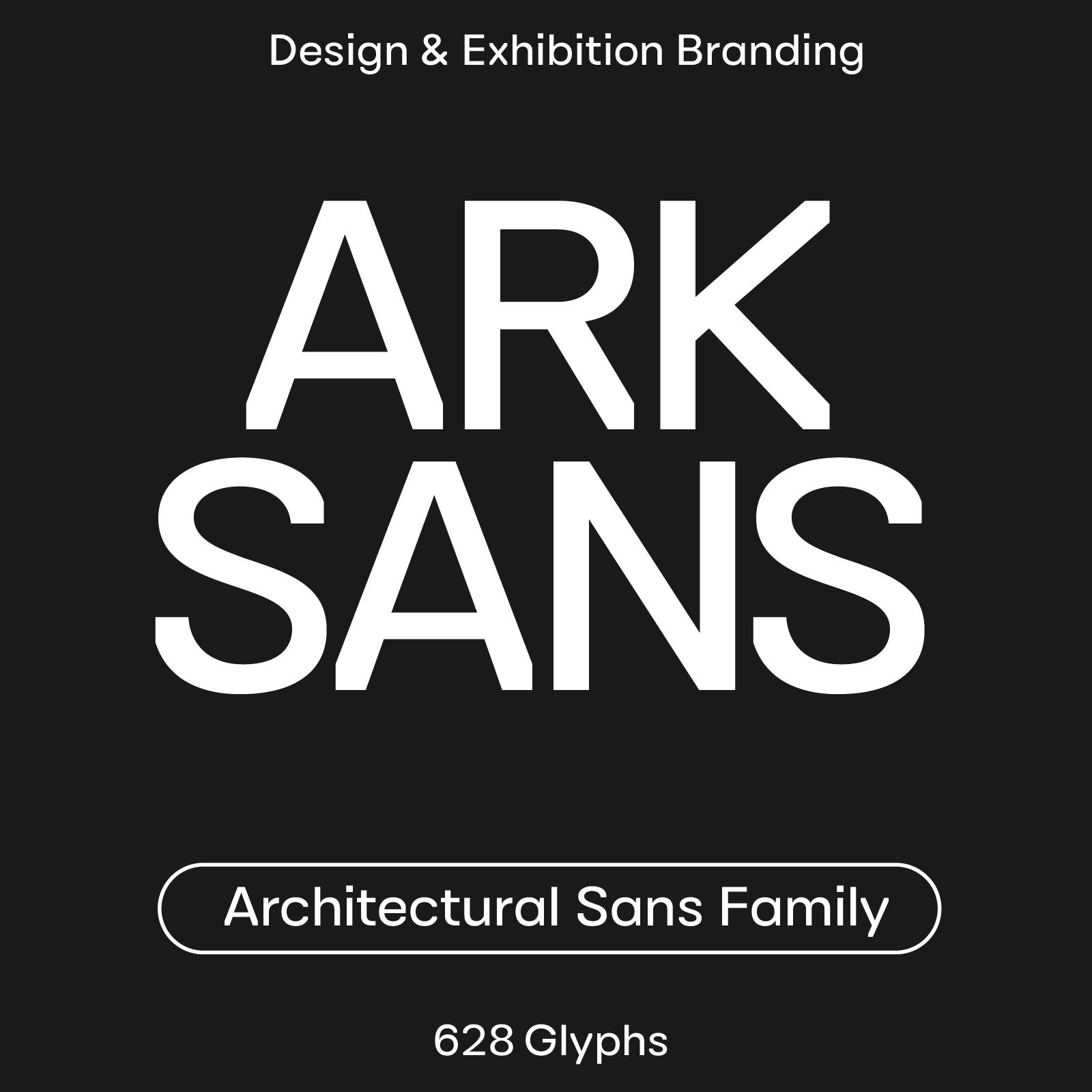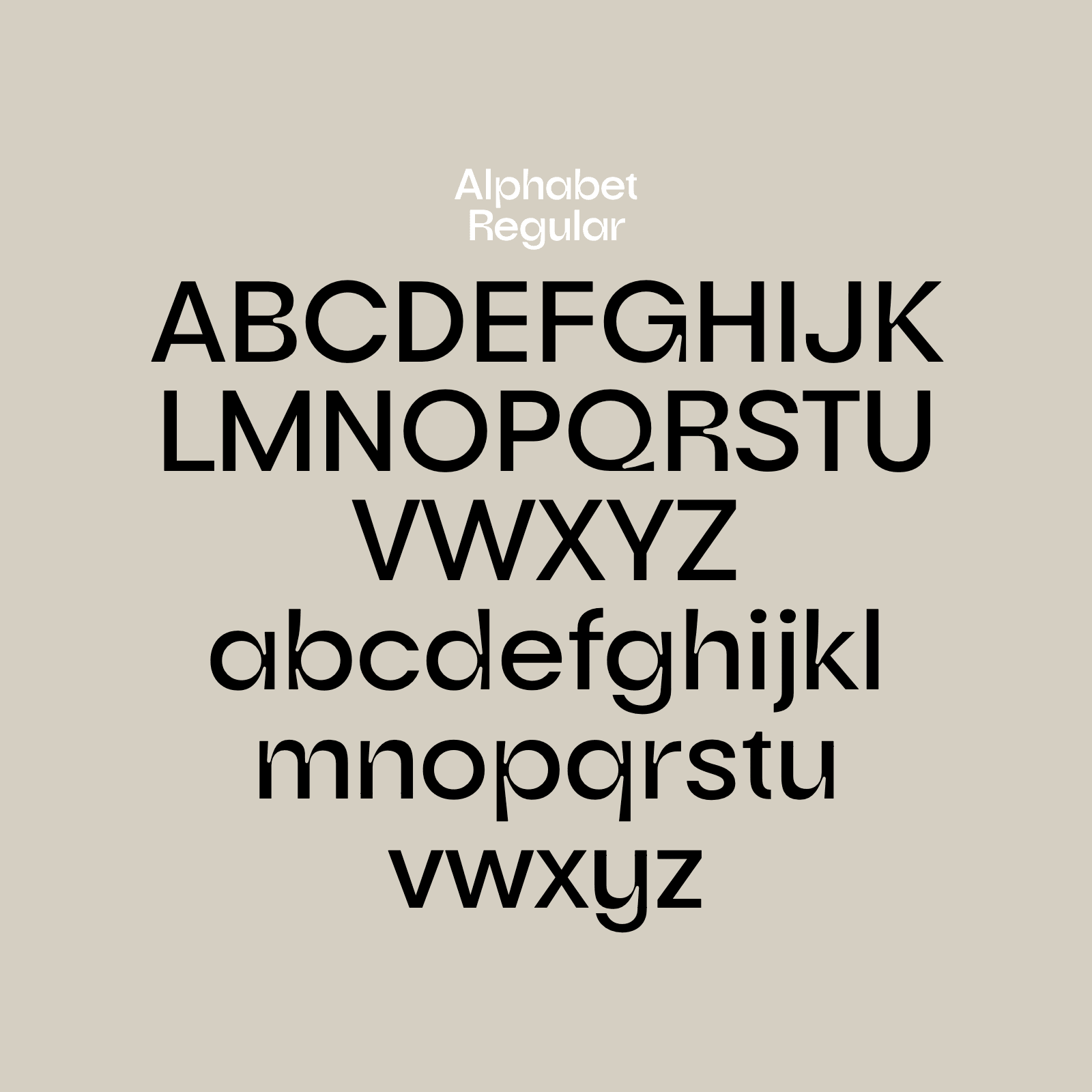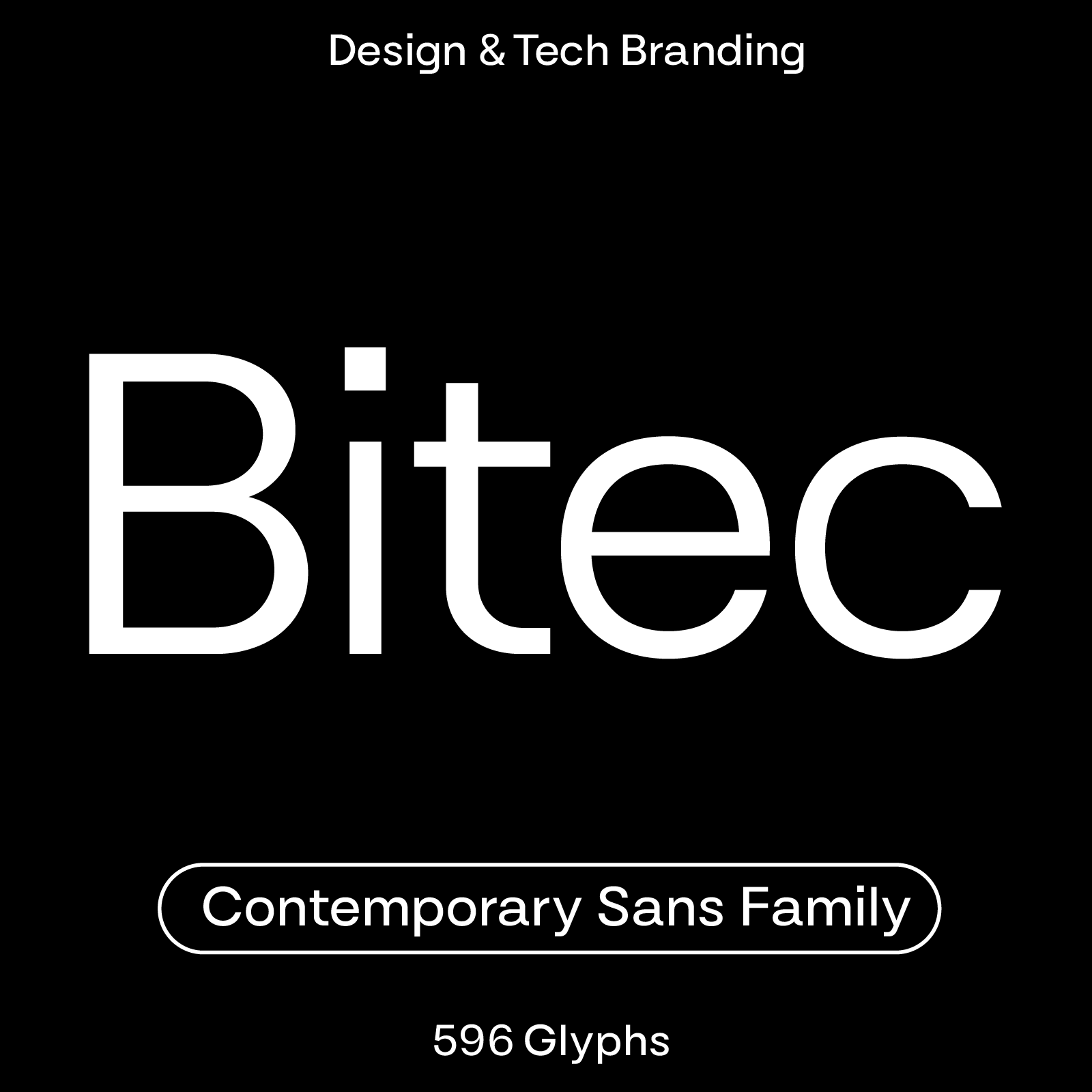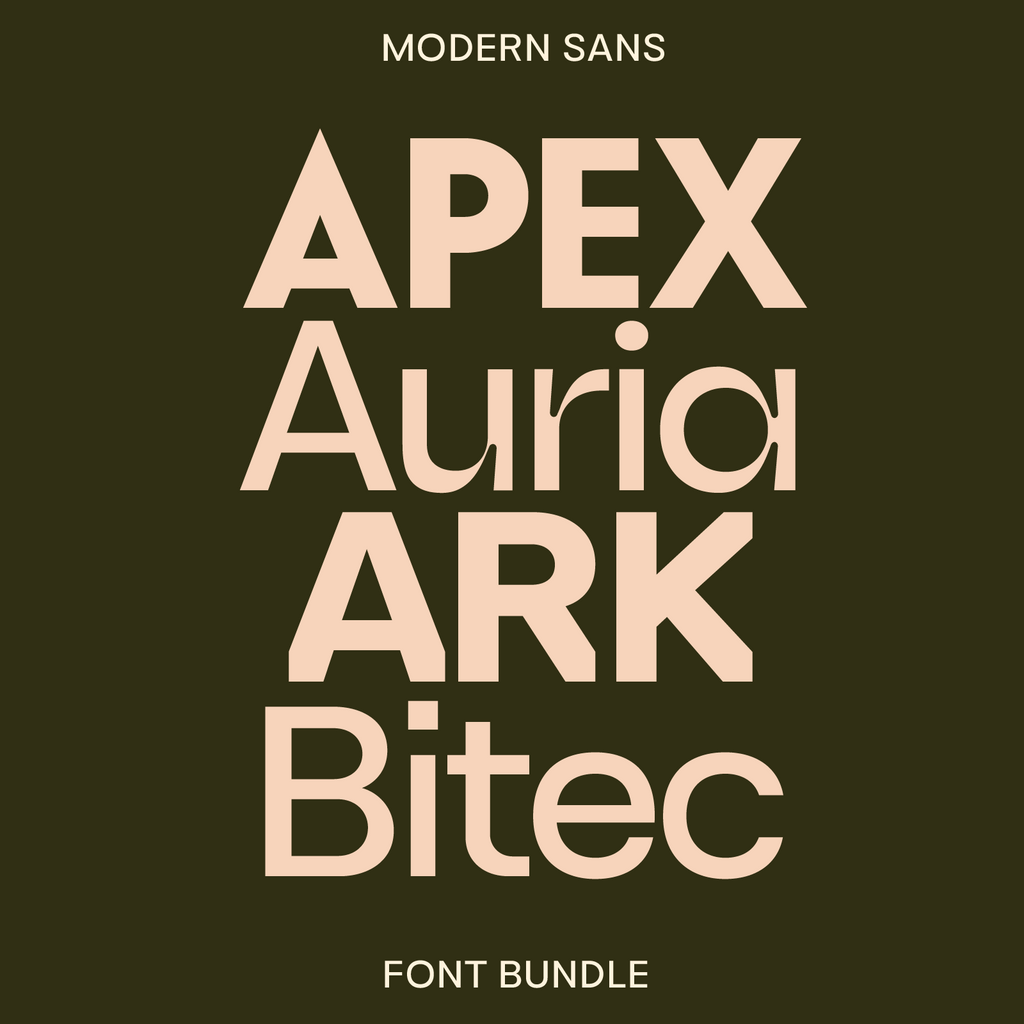
Modern Sans Set
Four modern sans serifs that share a calm look but each have their own personality. They pair easily. Includes 4 full families: Apex, Auria, Ark Sans and Bitec.